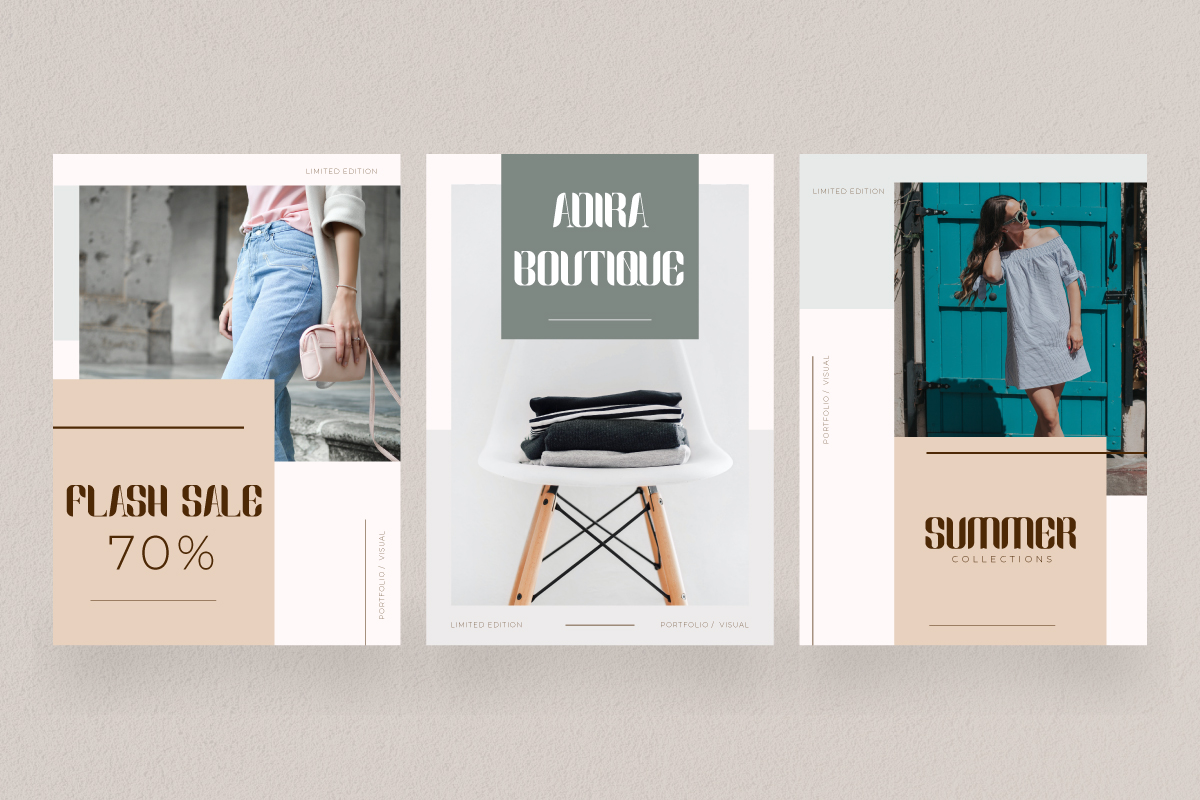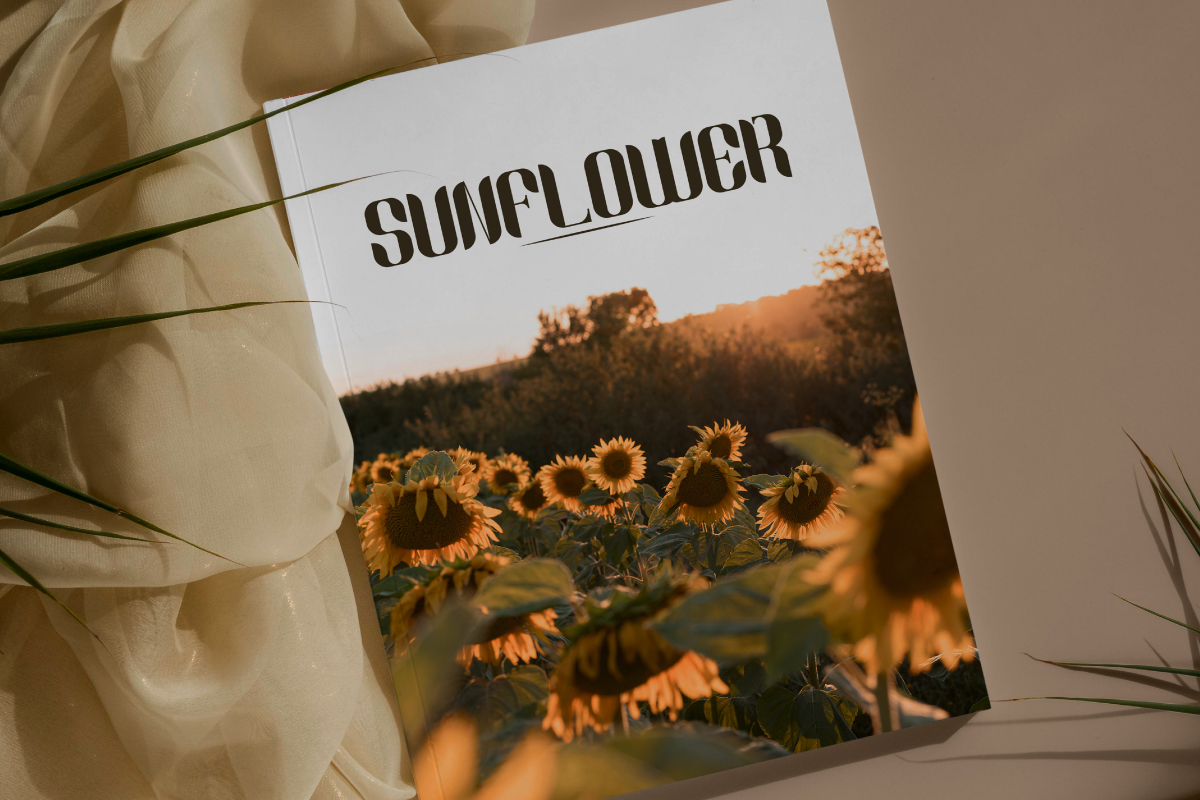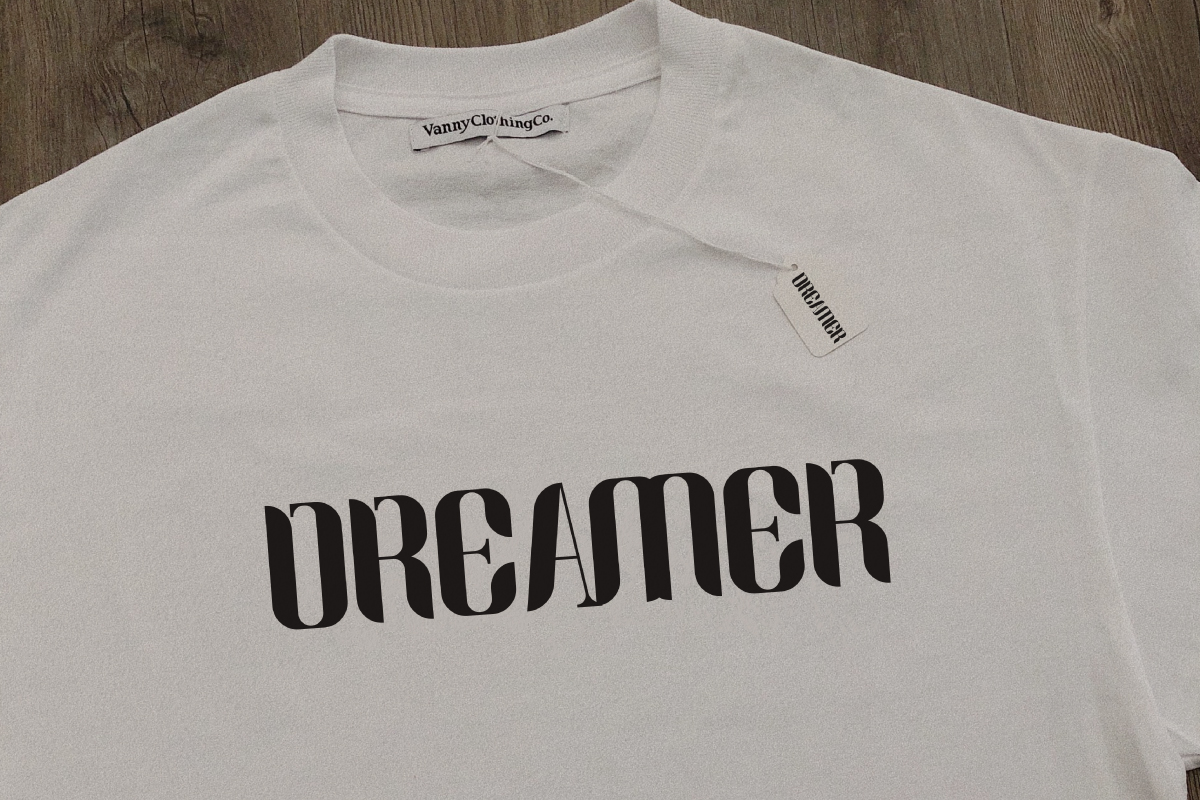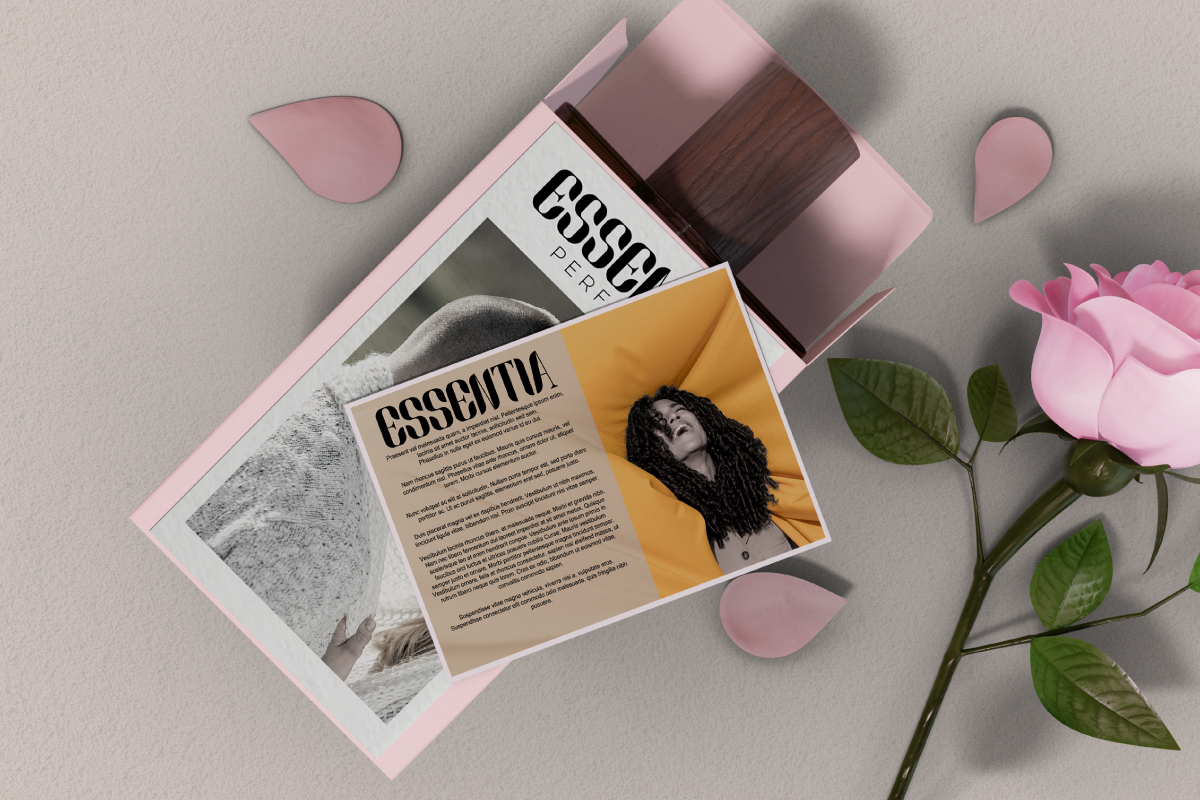
Brisant Font
Brisant Display Font
This is a display font inspired from late vintage Scandinavian style. This font has vintage characters and classy style that looks awesome in just about every context. Use it for logos, print, collage, body text, and more!
Brisant Serif Font includes full set of Uppercase and Lowercase Basic Characters, Numerals and Punctuation. Also it contains ligatures to make it flowless characters to perfectly make awesome look that add more aesthetic fonts to perfect your extraordinary project. Brisant Font will be great for Use it for any project that needs a unique, authentic look!